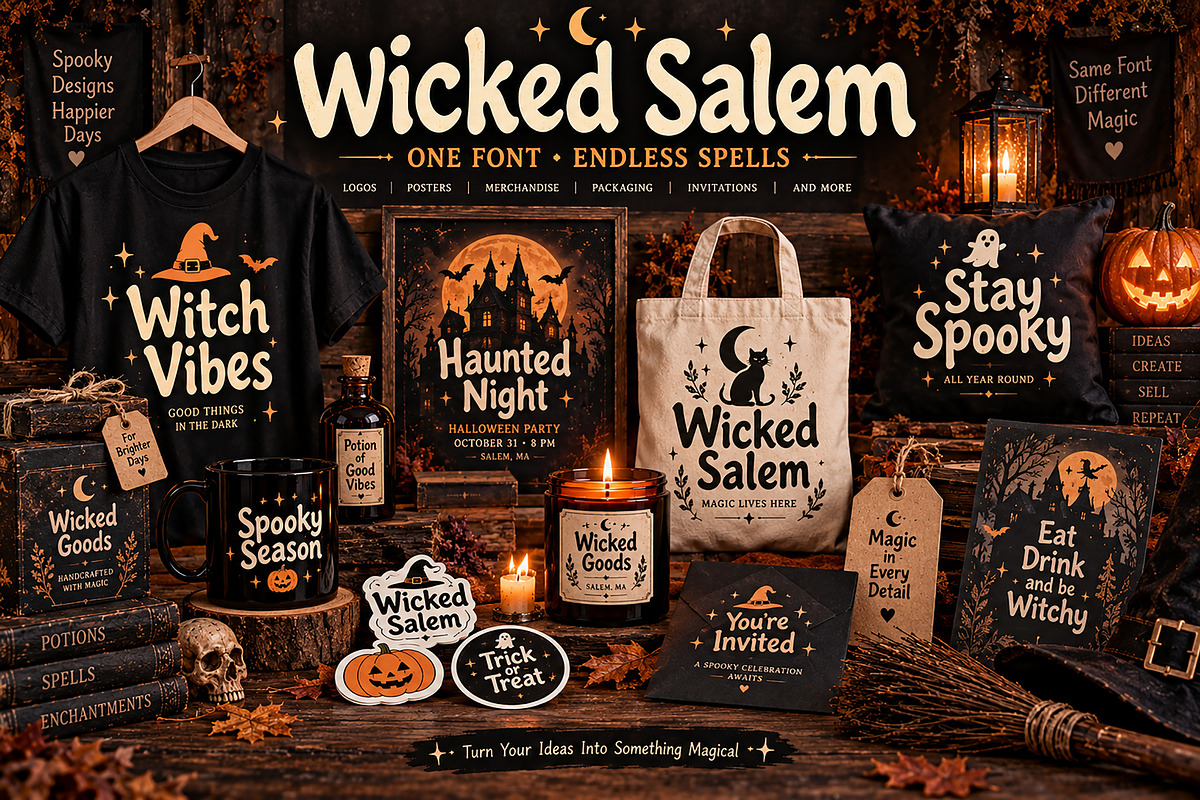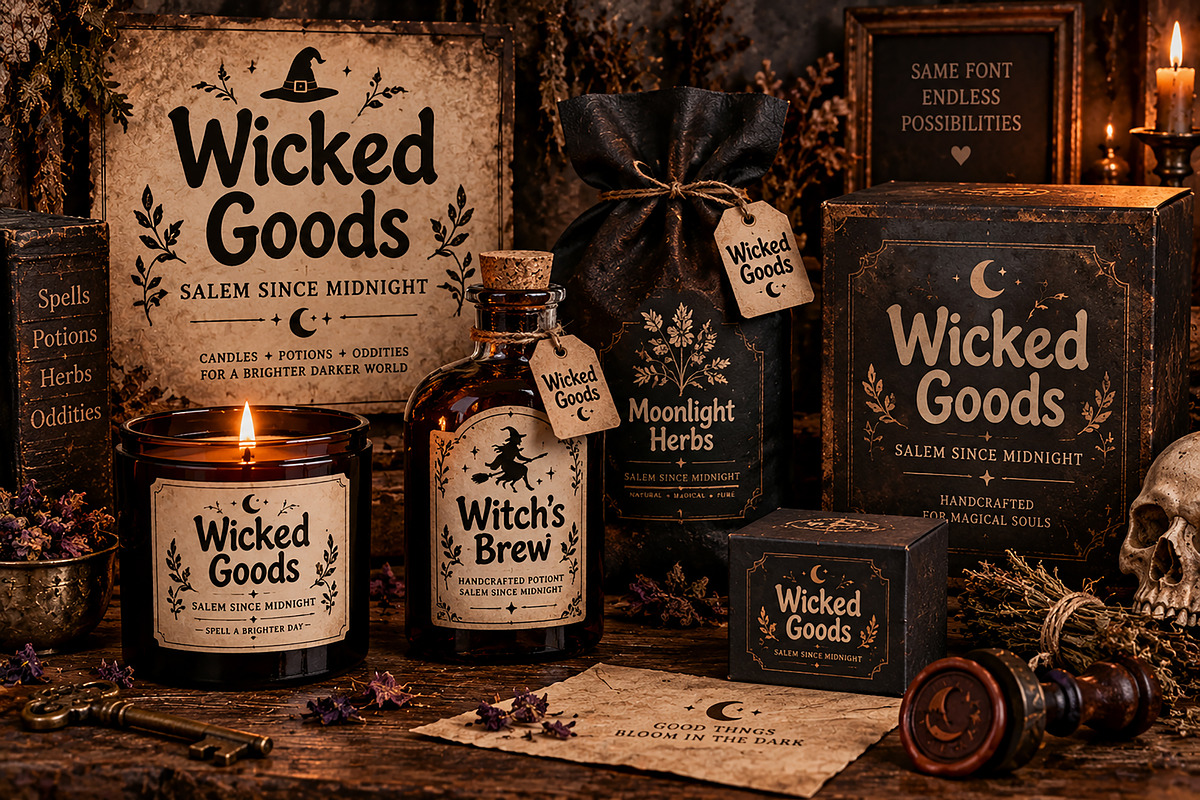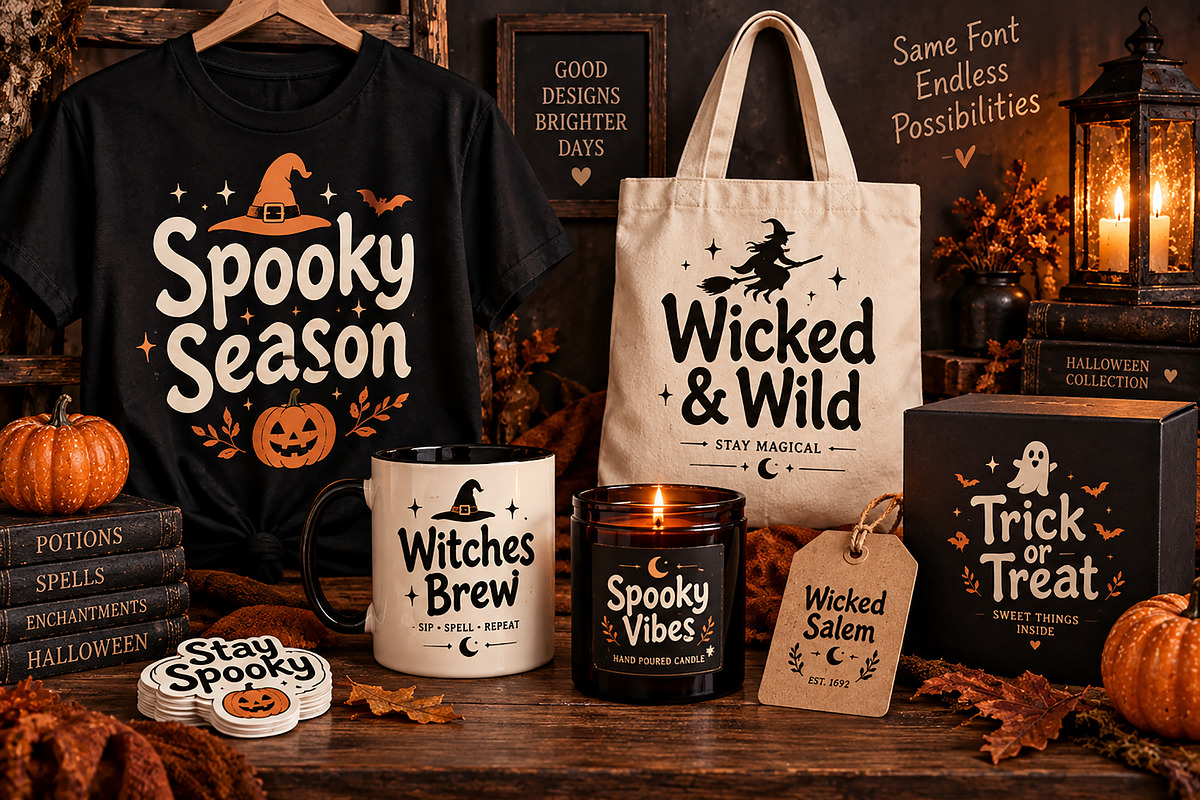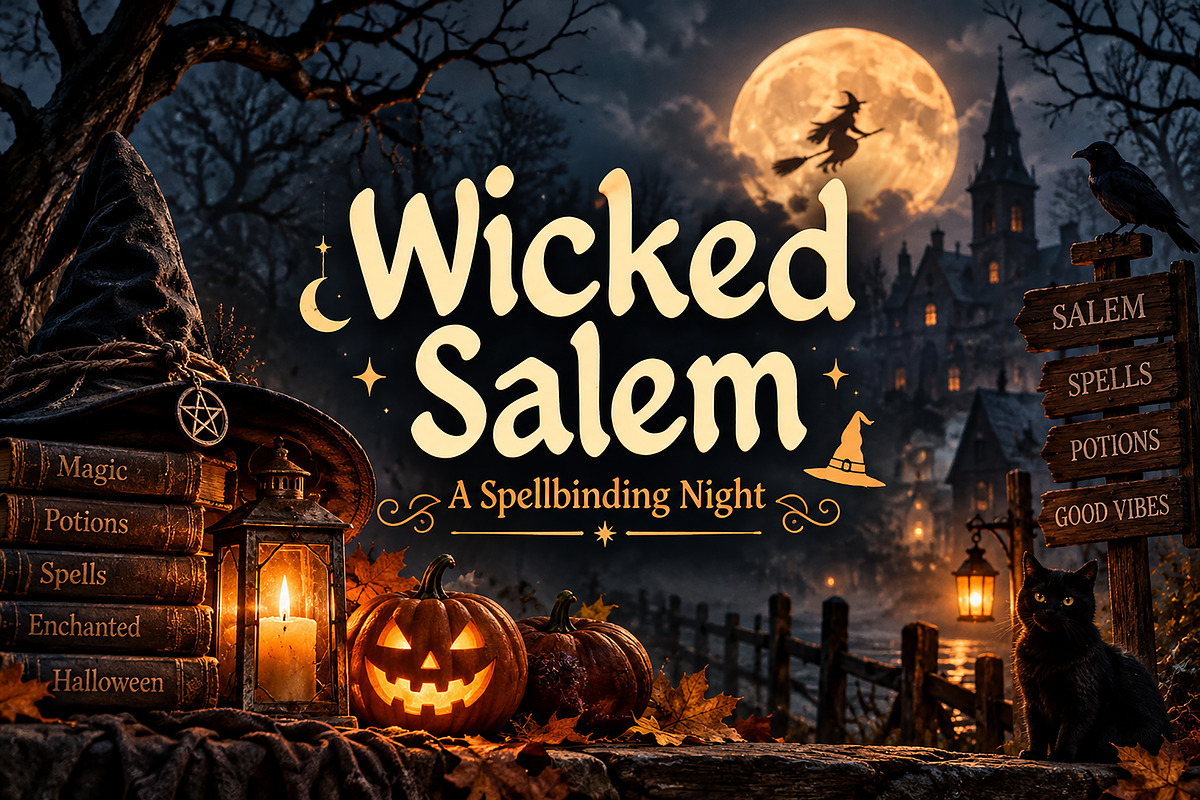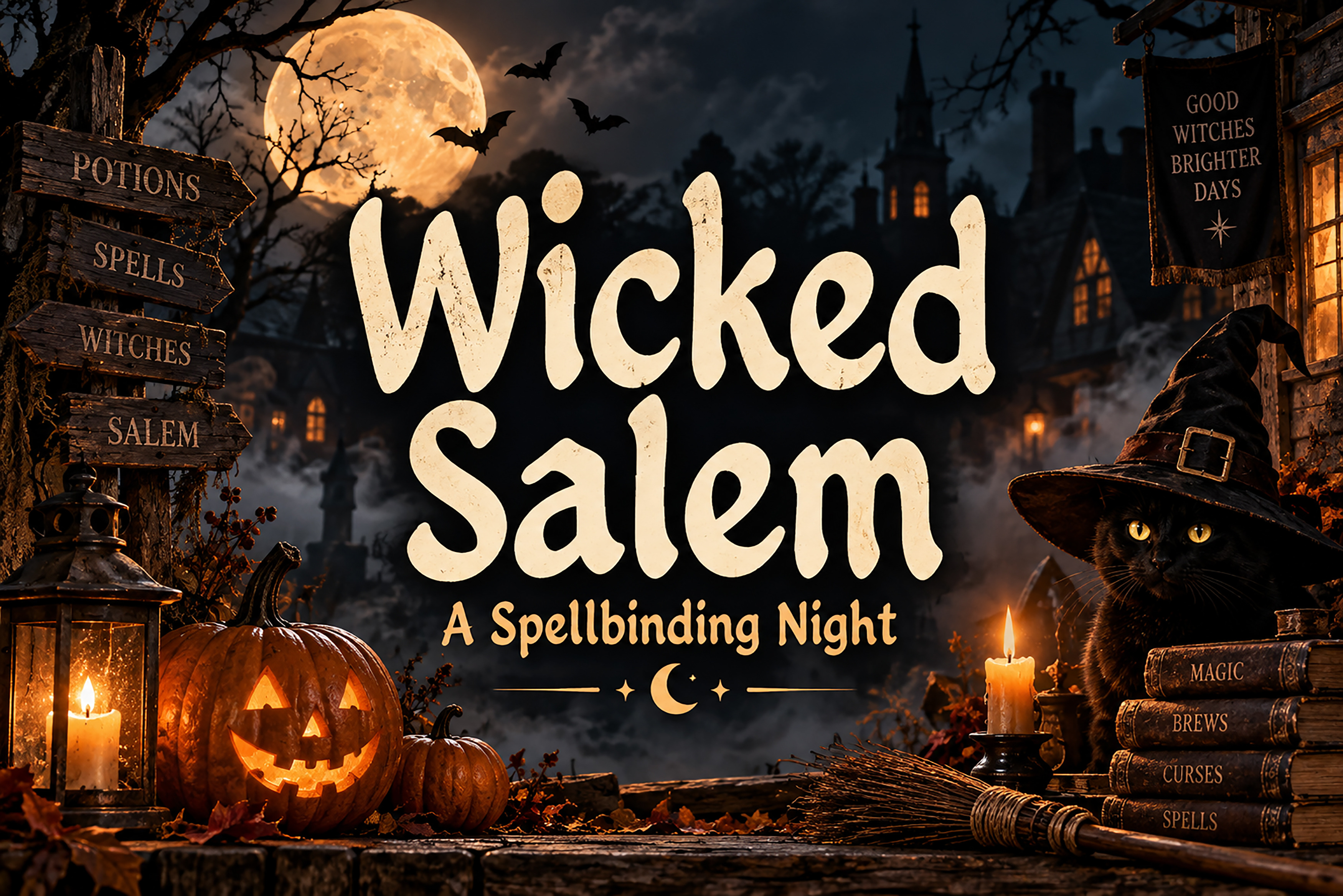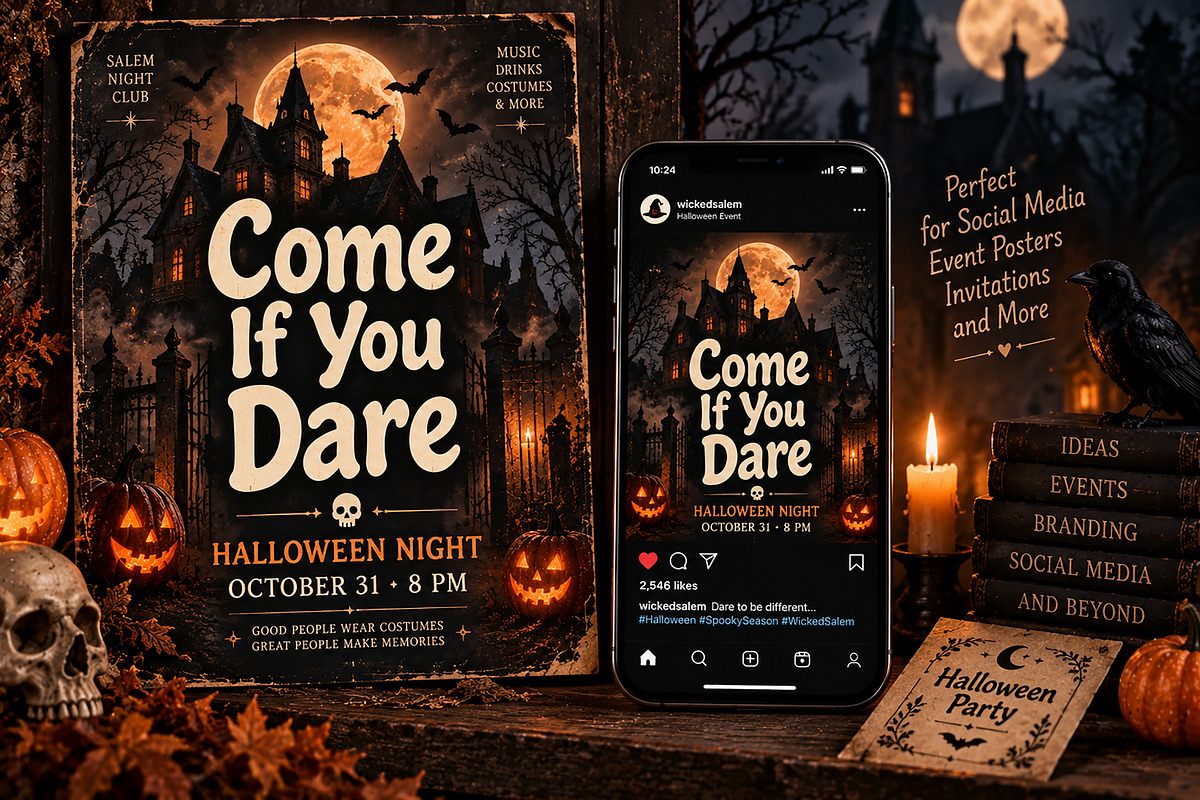
Wicked Salem — Spooky Halloween Font
Wicked Salem — Spooky Halloween Display Font
Bring a playful, mysterious, and wickedly fun atmosphere to your designs with Wicked Salem, a bold display font inspired by Halloween nights, witchy vibes, haunted towns, and magical adventures.
With its distinctive hand-drawn appearance and playful spooky personality, Wicked Salem is perfect for creating eye-catching designs that need a fun yet mysterious touch. Its bold shapes make the lettering stand out beautifully across both digital and print projects.
Halloween Designs
T-Shirt & Apparel Designs
Posters & Flyers
Halloween Party Invitations
Logo & Branding Projects
Stickers & Decals
Mug & Tote Bag Designs
Packaging & Product Labels
Candle & Craft Branding
Greeting Cards
Seasonal Merchandise
Event Promotions
Cricut & Cutting Projects
Creative Typography Designs
Whether you're creating spooky merchandise, Halloween branding, party artwork, social media graphics, or seasonal products, Wicked Salem adds a memorable and playful personality to every project.
Style: Spooky / Halloween / Playful Display
Wicked Salem — Make your designs wickedly unforgettable.